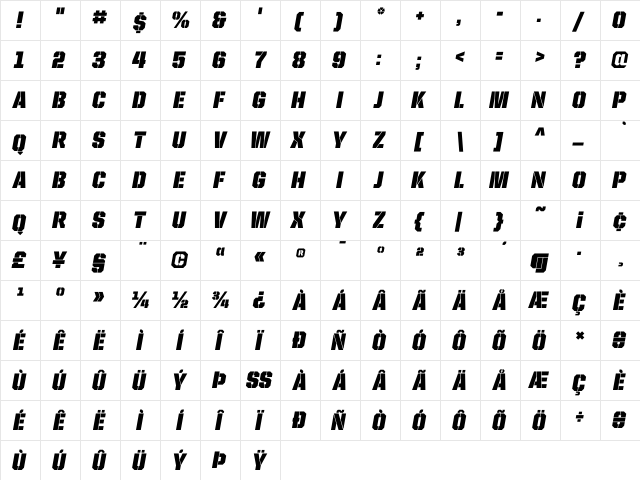
United Italic SemiCond Stencil
| Foundry | House Industries |
| Designer | Tal Leming |
Design Context for United Italic SemiCond Typeface
United Italic SemiCond has the rough pragmatism of spray-painted stencil signage, adding a raw, street-level authenticity to designs. Its italic angle brings a sense of urgency and motion to the letterforms.
Ideal for industrial branding, streetwear, military-adjacent aesthetics, and urban signage projects.
Pro Tip: Pair United Italic SemiCond with raw, utilitarian design elements — exposed concrete textures, flat colour, and minimal ornamentation suit it well.